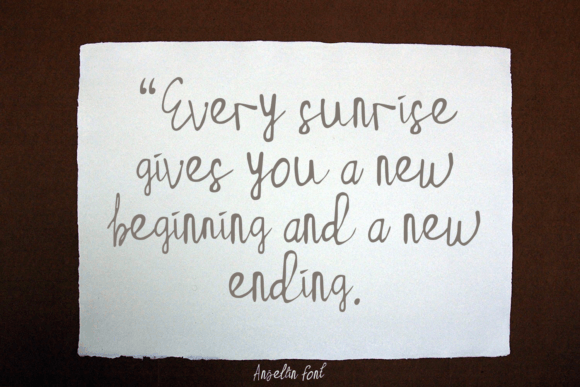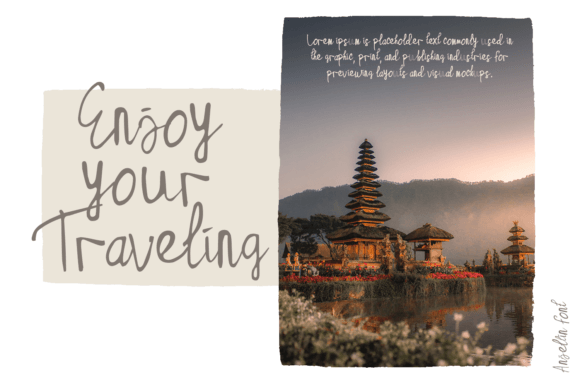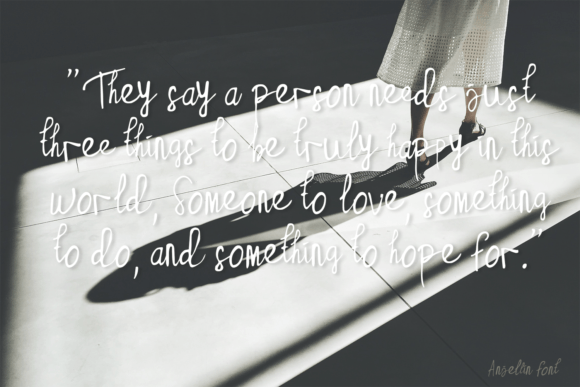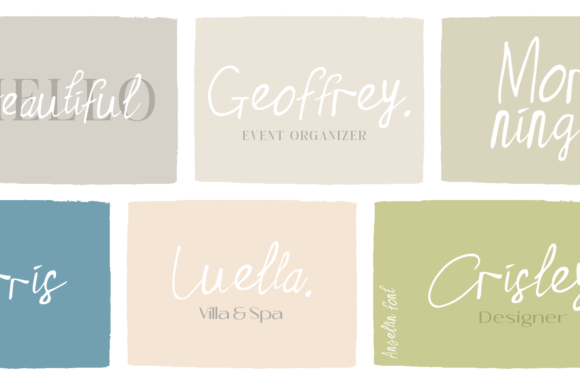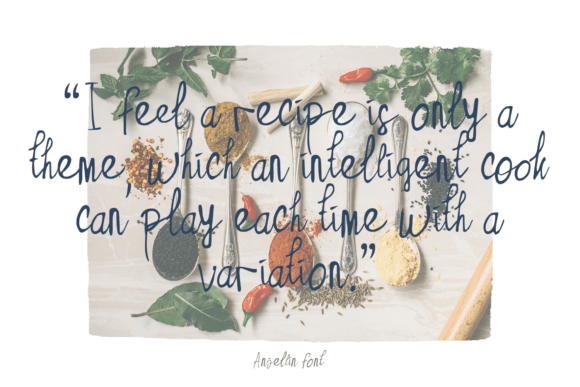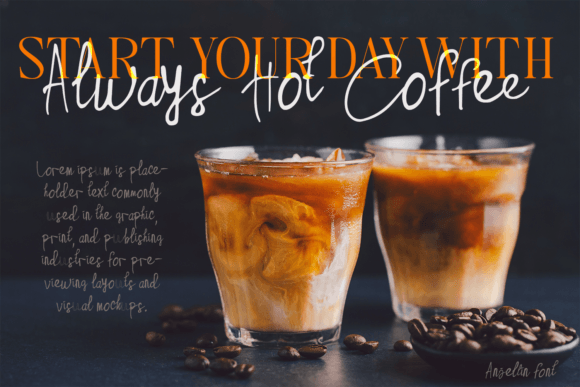
Introducing Anjellin Script Font: Elevate Your Designs with Classic Handwriting Elegance
In the world of typography, script fonts hold a special place for their elegance, fluidity, and ability to convey emotions through their beautiful strokes. Among these, the Anjellin Script Font stands out as a versatile and captivating choice for designers and crafters alike. Inspired by classic handwriting, Anjellin brings a touch of sophistication and charm to any project it’s a part of. Whether you’re working on branding, product packaging, invitations, quotes, t-shirts, labels, posters, or any other creative endeavor, Anjellin is designed to enhance your designs with its realistic and elegant script.
The Charm of Anjellin Script Font
Anjellin is more than just a font; it’s a tool that can transform your designs by adding a personal and human touch. Its realistic script style mimics the fluidity and imperfections of handwriting, making it incredibly versatile for a wide range of applications. The font’s classic inspiration ensures it remains timeless, avoiding the pitfalls of trend-specific designs that may quickly become outdated.
Key Features of Anjellin Script Font
- Realistic Handwriting Style: Anjellin’s design is rooted in the beauty of classic handwriting, offering a genuine and heartfelt feel to your text.
- Versatility: From elegant branding and luxurious product packaging to charming invitations and impactful quotes, Anjellin adapts seamlessly to various design needs.
- Elegance and Sophistication: The font’s intrinsic elegance makes it perfect for designs that require a touch of sophistication and class.
- Easy to Read: Despite its script nature, Anjellin maintains a high level of readability, ensuring your message is conveyed clearly and effectively.
Applications of Anjellin Script Font
The versatility of Anjellin Script Font makes it suitable for a myriad of design projects. Here are some of the most impactful uses:
- Branding: Establish your brand’s identity with a unique and memorable script that sets you apart from the competition.
- Product Packaging: Add a luxurious and premium feel to your product packaging, enhancing the unboxing experience for your customers.
- Invitations: Whether it’s a wedding, birthday, or corporate event, Anjellin adds a touch of elegance and formality to your invitations.
- Quotes and Posters: Bring your quotes to life with a visually appealing font that captures the essence of your message.
- T-Shirts and Merchandise: Create custom apparel and merchandise that stands out with Anjellin’s unique and stylish script.
- Labels and Packaging: For crafters and small business owners, Anjellin offers a professional and attractive solution for product labels and packaging.
Why Choose Anjellin Script Font?
In a sea of digital fonts, Anjellin stands out for its unique blend of classic inspiration and modern versatility. Here are a few reasons why designers and crafters prefer Anjellin:
- Unique and Memorable: Anjellin’s distinctive style ensures your designs are memorable and impactful.
- Time-Saving: With its high readability and clarity, Anjellin saves you time in designing and redesigning to ensure your message is understood.
Anjellin Script Font is a powerful tool for anyone looking to add a touch of elegance and personality to their designs. Its realistic handwriting style, versatility, and timeless appeal make it an excellent choice for a wide array of projects. Whether you’re a professional designer or a crafty DIY enthusiast, Anjellin invites you to explore new creative horizons and elevate your designs to the next level.
Embrace the beauty of classic handwriting with Anjellin Script Font and discover a world of possibilities for your creative projects.